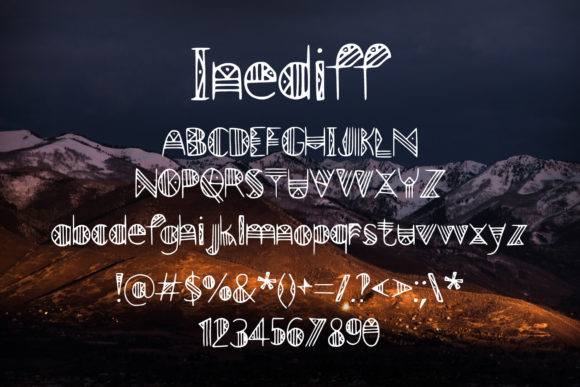
Introduction to Inediff Font
Have you ever stumbled upon the perfect font while scrolling through social media, and suddenly your creative project is transformed into something truly special? That’s exactly what happened to me when I discovered the Inediff Font. Its unique, hand-drawn style immediately caught my eye, and I couldn’t wait to experiment with it.
As a designer, I know how valuable it is to have high-quality, versatile fonts that can elevate our work and make it stand out. The Inediff Font is more than just a pretty face – it’s a design resource that’s perfect for creating eye-catching social media posts, cute greeting cards, and so much more. With its transparent background and free download option, it’s an absolute must-have for any creative project.
Key Features of Inediff Font
- High-quality typography with a unique, creative design suitable for various projects.
- Transparent background, allowing for easy overlay on different images or designs.
- Perfect for creative projects, such as graphic design, digital art, and typography-based designs.
- Unique characteristics, including intricate details and subtle nuances, set it apart from other fonts.
Honest Review: Inediff Font
As a designer, I’m always on the lookout for high-quality design resources that can elevate my creative projects. Recently, I stumbled upon the Inediff Font, and I’m excited to share my honest review.
- The Inediff Font boasts a beautiful, modern design that’s perfect for any creative project.
- The font is incredibly versatile, making it suitable for a wide range of applications, from digital to print.
- The transparent background of the font makes it easy to layer and combine with other design elements.
- The font may not be suitable for very small text sizes, as it can appear pixelated.
- The font’s design may not be as unique or distinctive as some other options available.
Overall, I’m impressed with the Inediff Font. While it may have some limitations, its high-quality design and versatility make it a valuable addition to any designer’s toolkit. If you’re looking for a reliable and easy-to-use font for your creative projects, the Inediff Font is definitely worth considering.
How to Use Inediff Font
The Inediff Font is a high-quality design resource ideal for creative projects. It features a transparent background, making it perfect for overlaying on images or using as a standalone element.
Getting the Most Out of Inediff Font
To get the most out of the Inediff Font, use it in combination with other high-quality design resources. Experiment with different font sizes, colors, and placements to create a unique and eye-catching design.
The Inediff Font is ideal for use in a variety of creative projects, including blog posts, social media graphics, and marketing materials. Its transparent background makes it perfect for overlaying on images or using as a standalone element.
Alternatives to Inediff Font
Lato is a beautiful font that is perfect for creative projects that require a touch of elegance and sophistication. It is available for free download and features a transparent background, making it ideal for use on any background. Lato is a great alternative to Inediff Font for designers who want a high-quality font that is both modern and timeless.